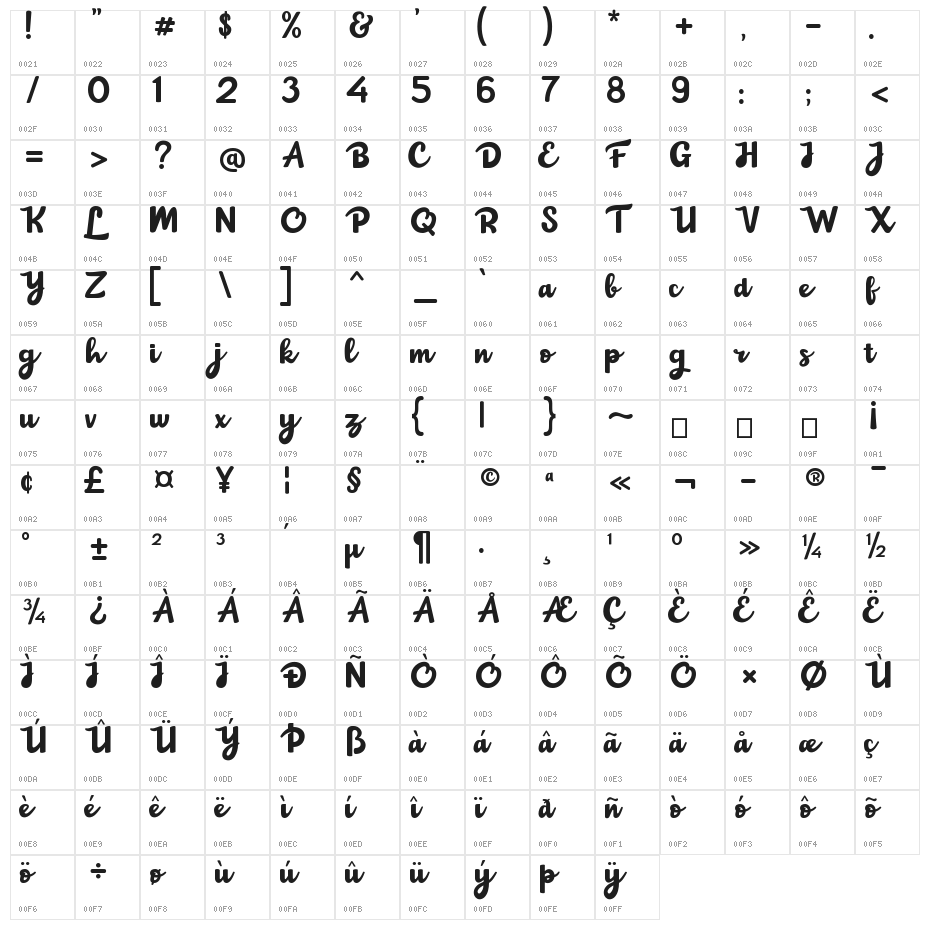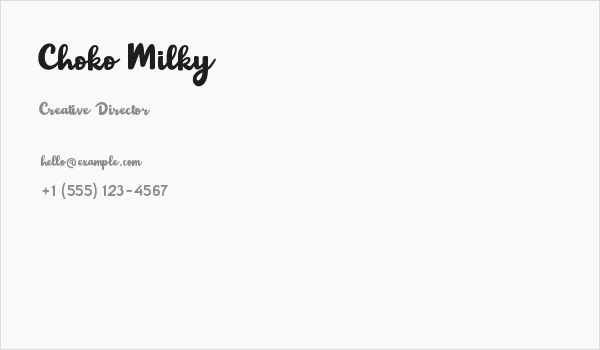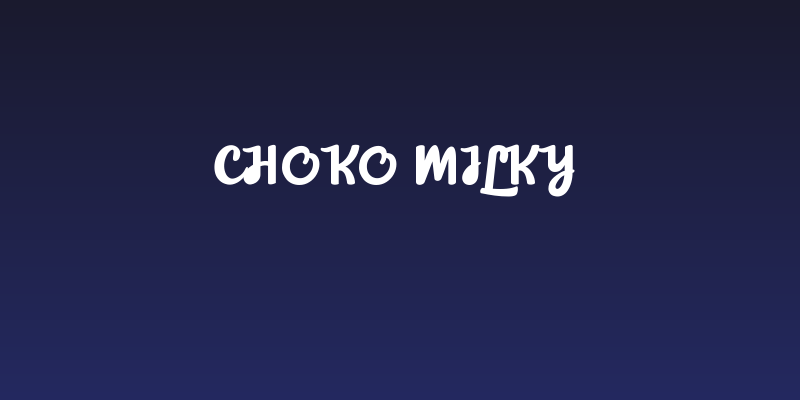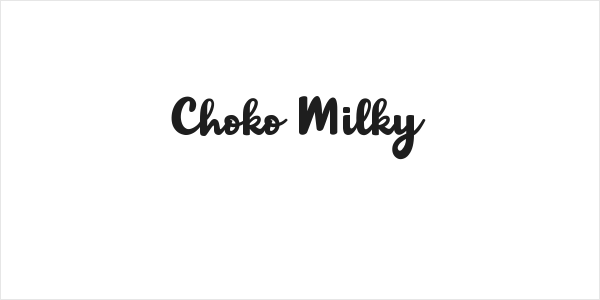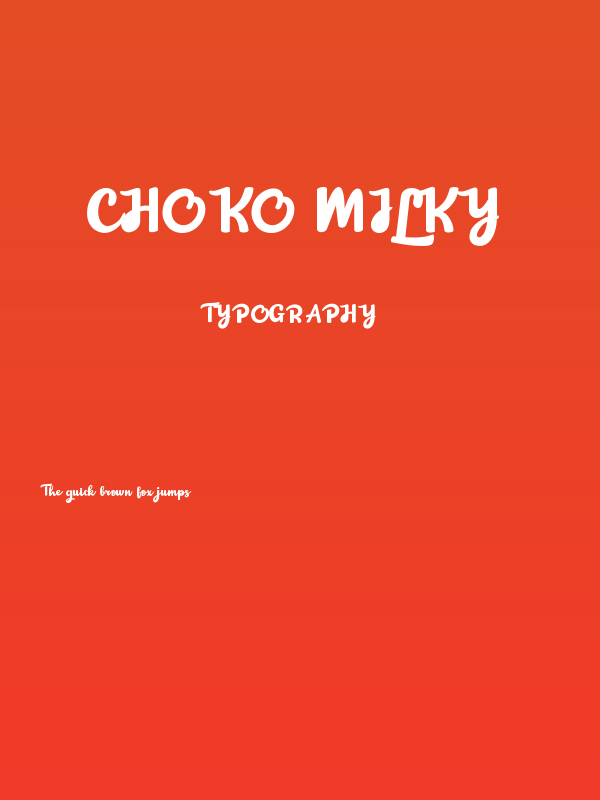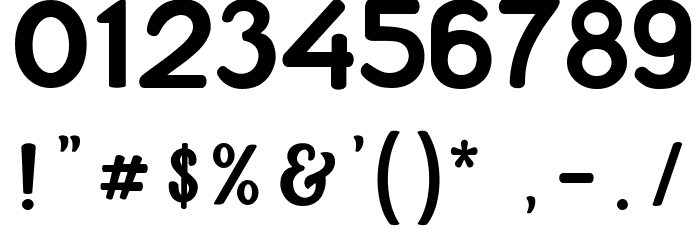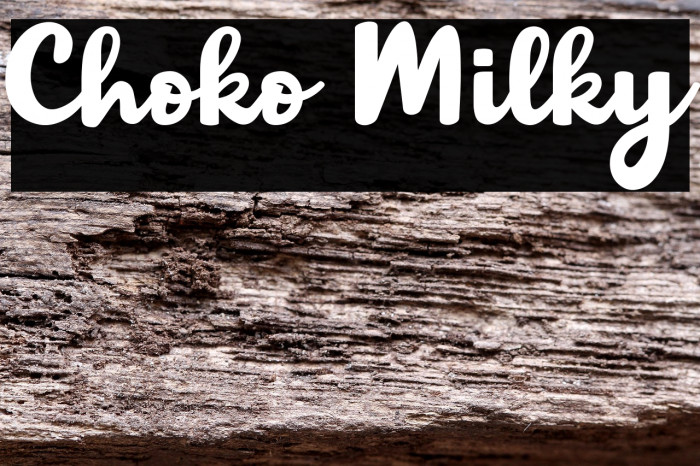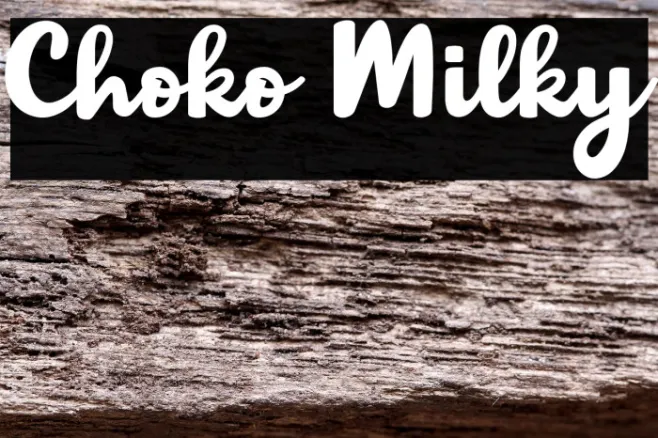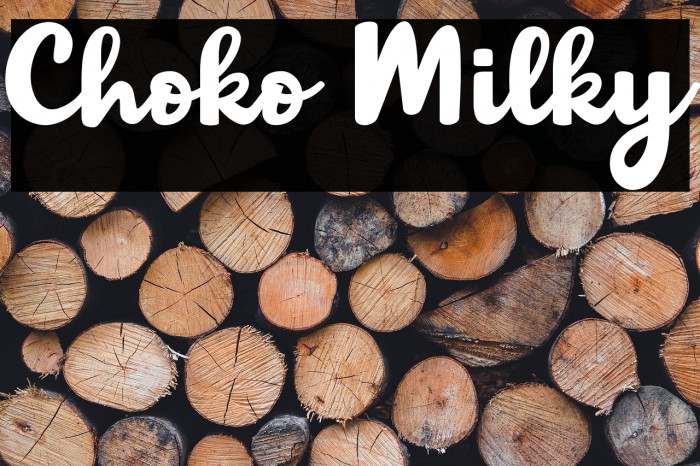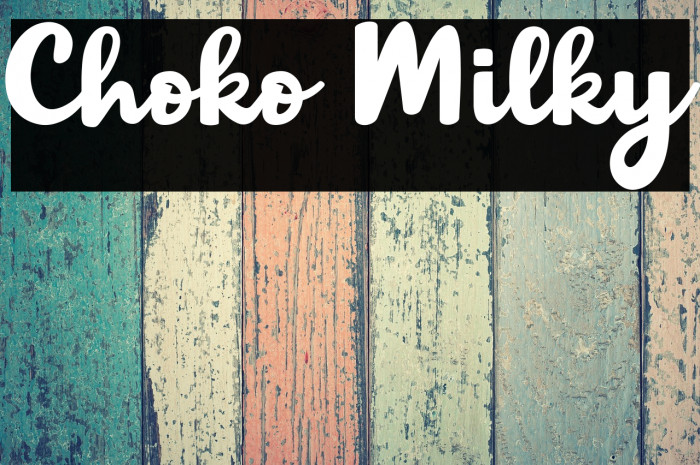
Choko Milky Font
Choko Milky Description
This playful and bold script font features a lively and energetic style, characterized by its thick, rounded strokes and smooth curves. The uppercase letters are slightly more structured, while the lowercase letters exhibit a more fluid and connected appearance, adding a sense of movement and rhythm. The numerals are clear and bold, maintaining the overall playful aesthetic. Special characters are well-integrated, ensuring versatility in various design contexts. The font's friendly and approachable nature makes it ideal for projects that aim to convey warmth and creativity.